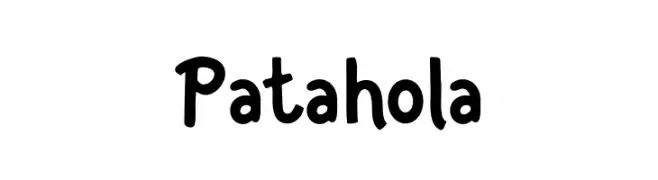
A playful, hand-drawn outline font with a casual and friendly style.
A bold, tribal-inspired font with sharp, angular edges and dynamic curves.
A bold, dynamic font with strong, condensed uppercase letters and consistent weight.
A cursive, handwritten-style font with elegant, flowing strokes.
A playful and whimsical script font with interconnected letters and a lively appearance.
A bold, hand-drawn font with an expressive, edgy style.
A playful, bold, and handwritten-style font with a whimsical touch.
A bold, modern italic font with dynamic and energetic strokes.
A bold, playful font with rounded edges and a bubbly appearance.